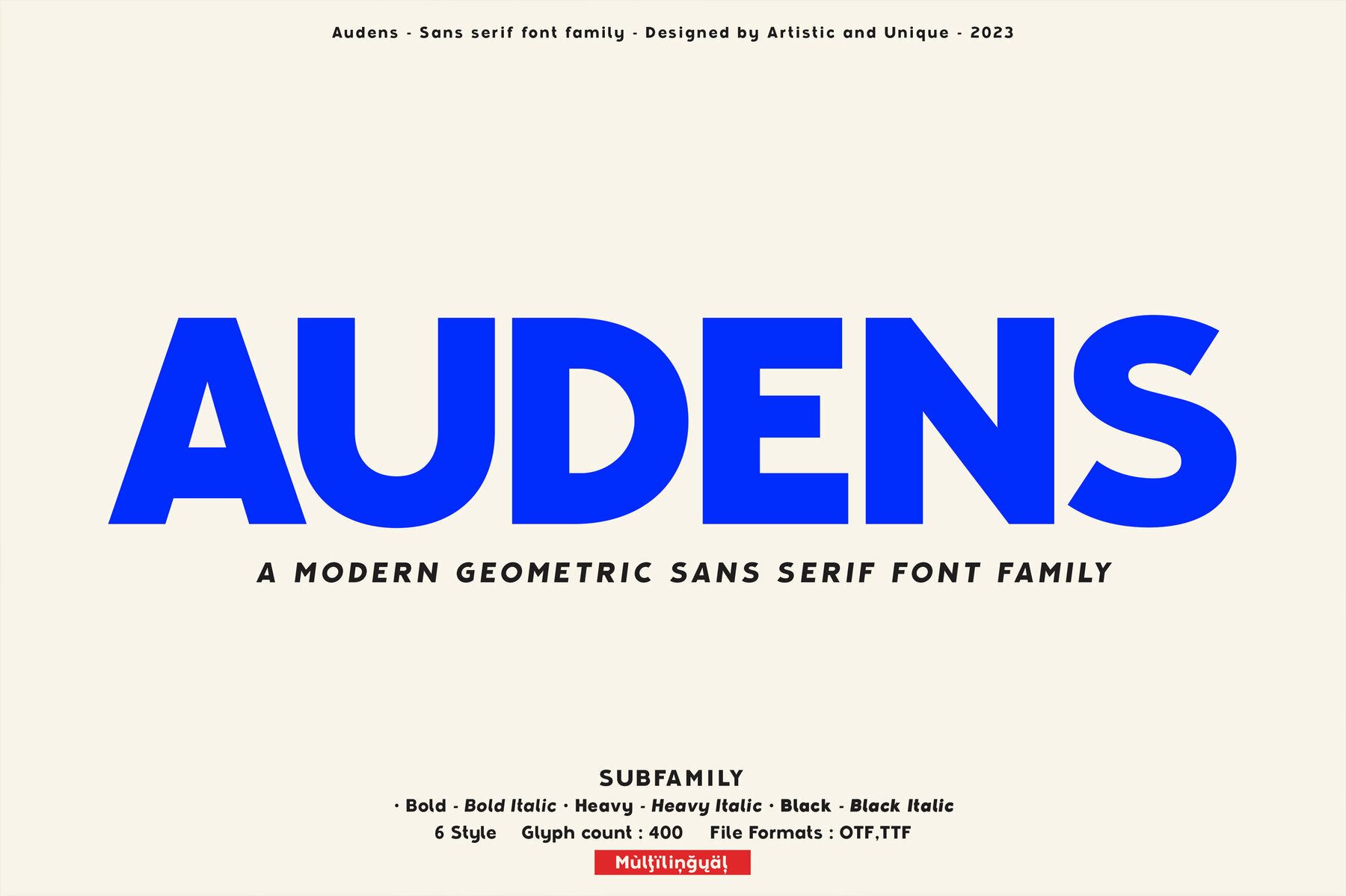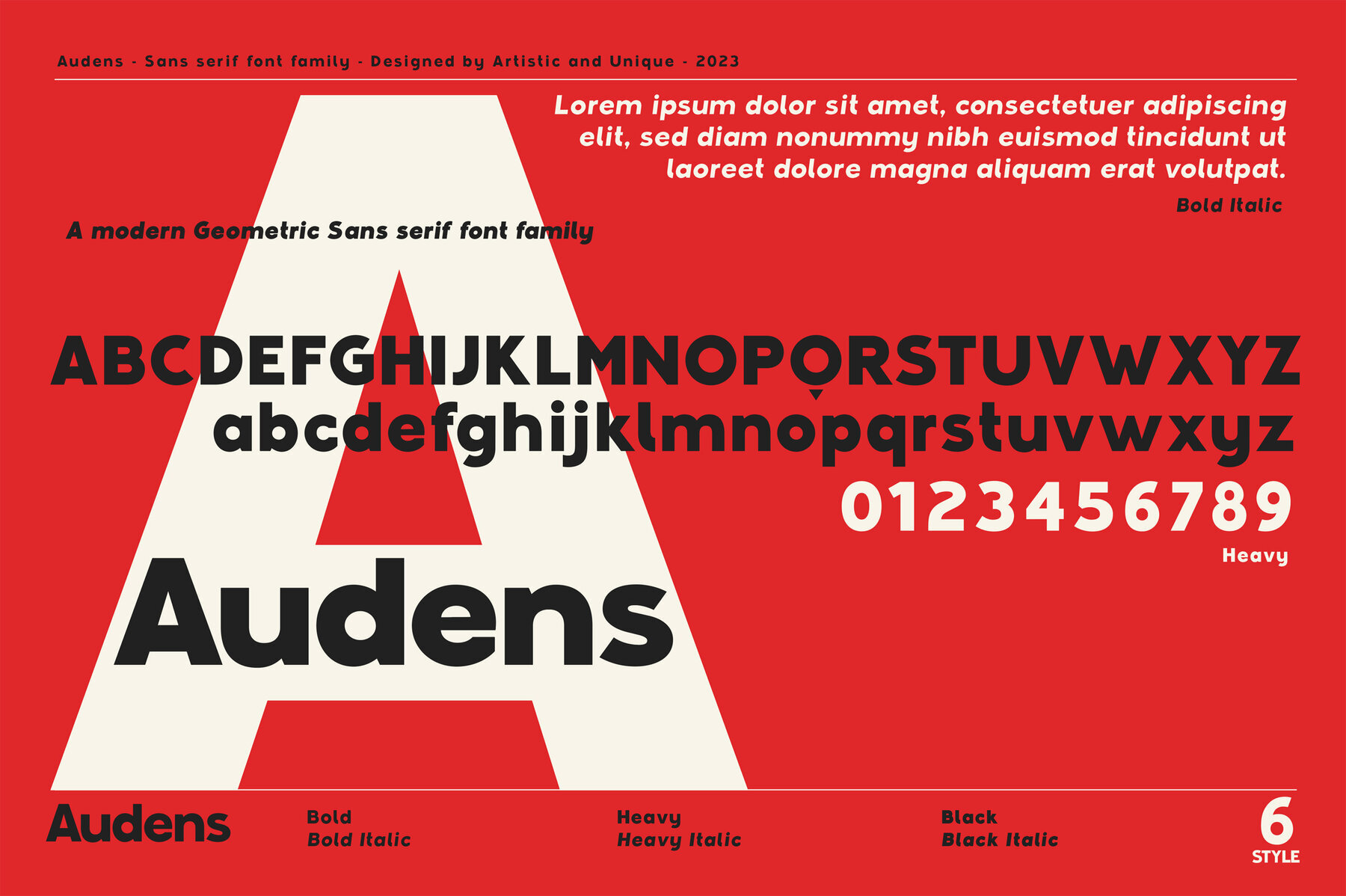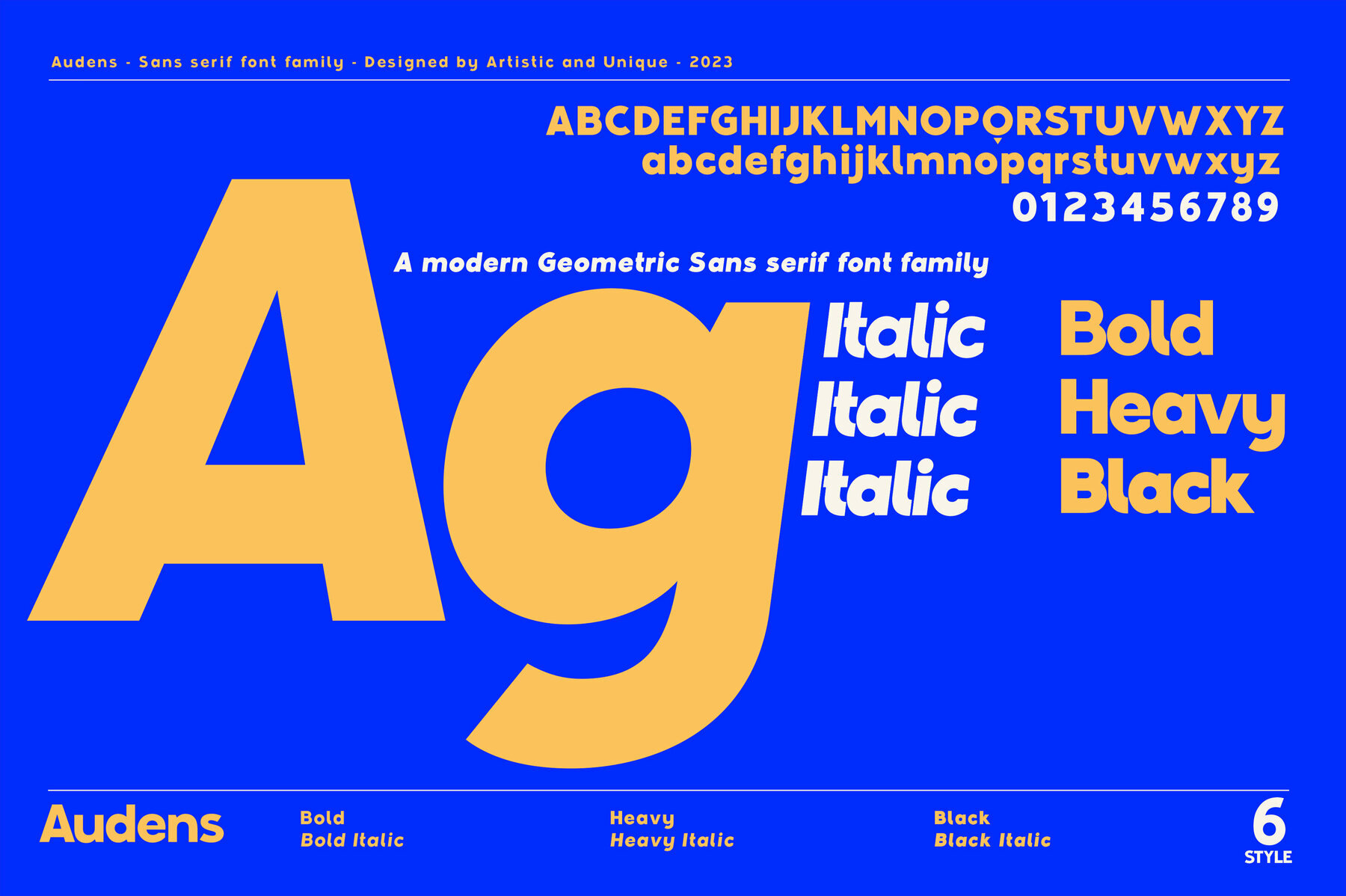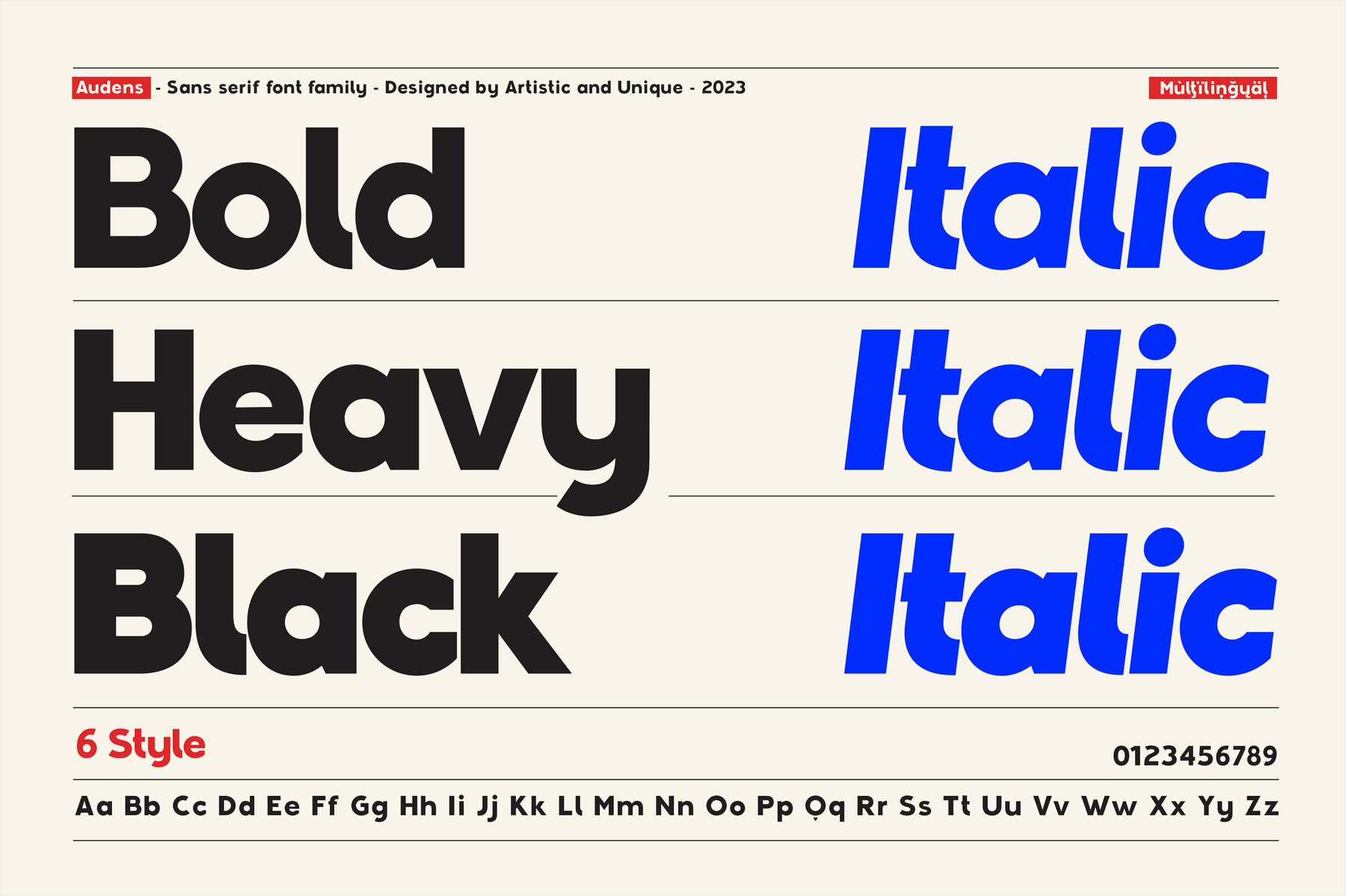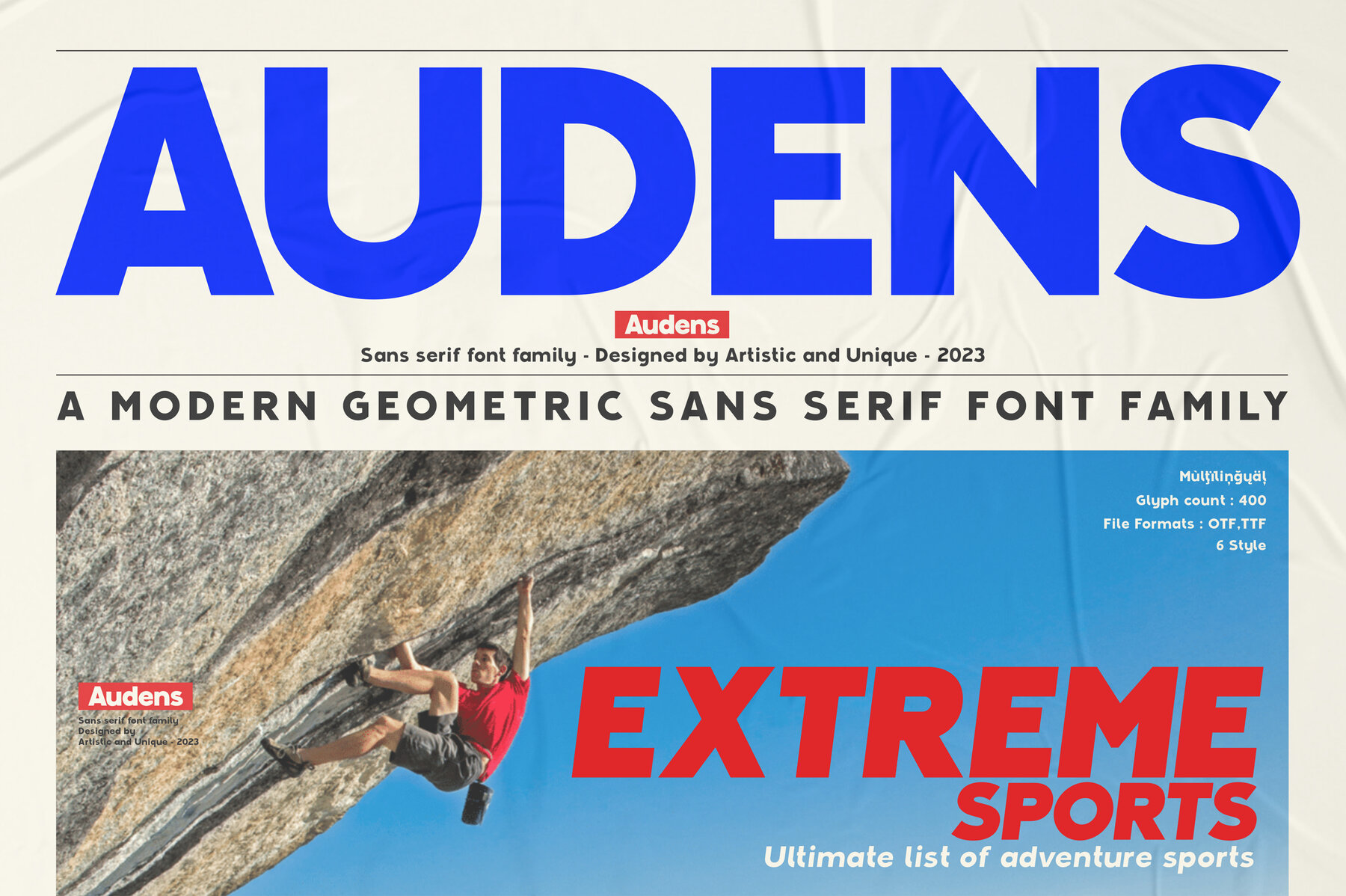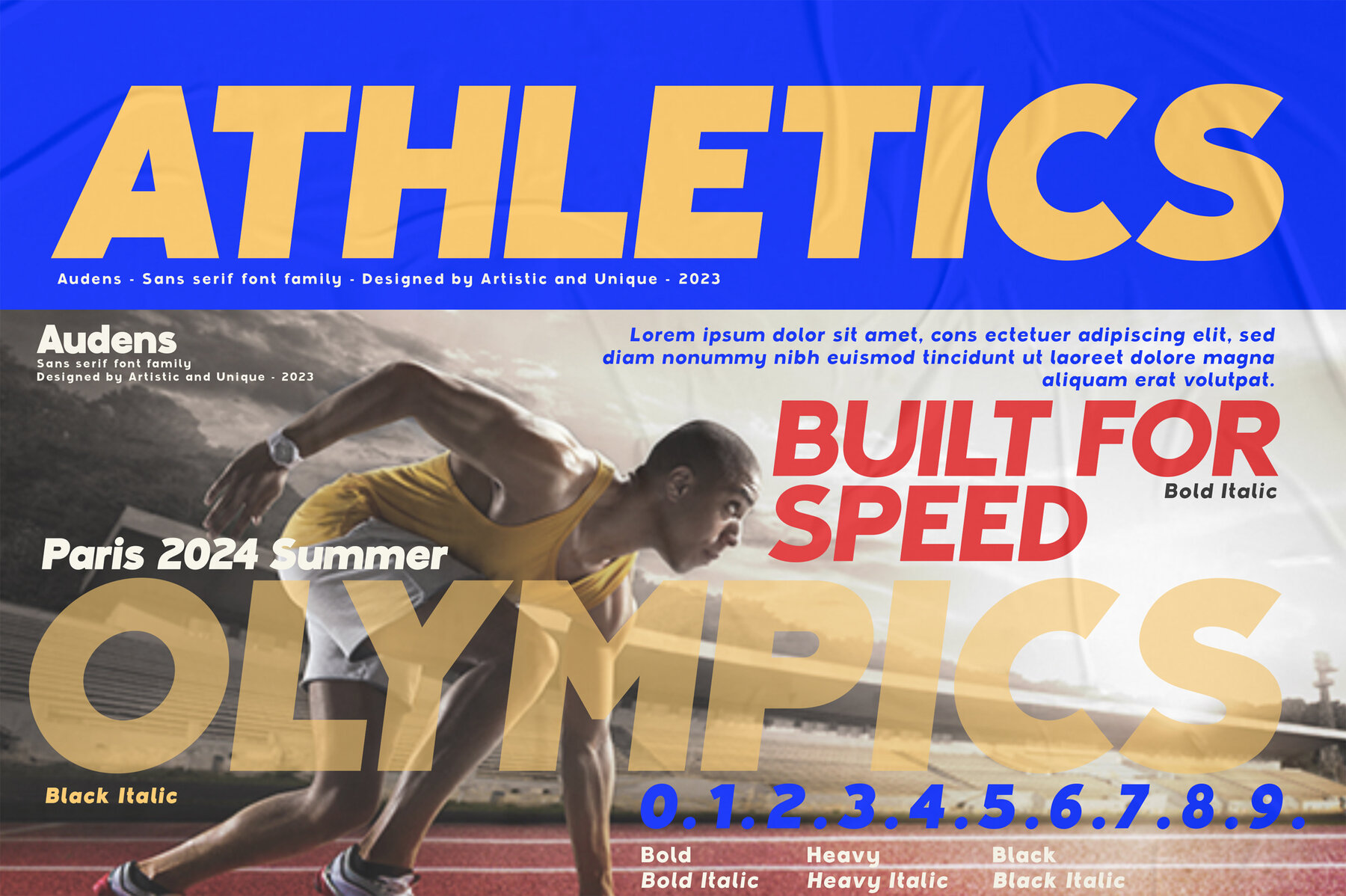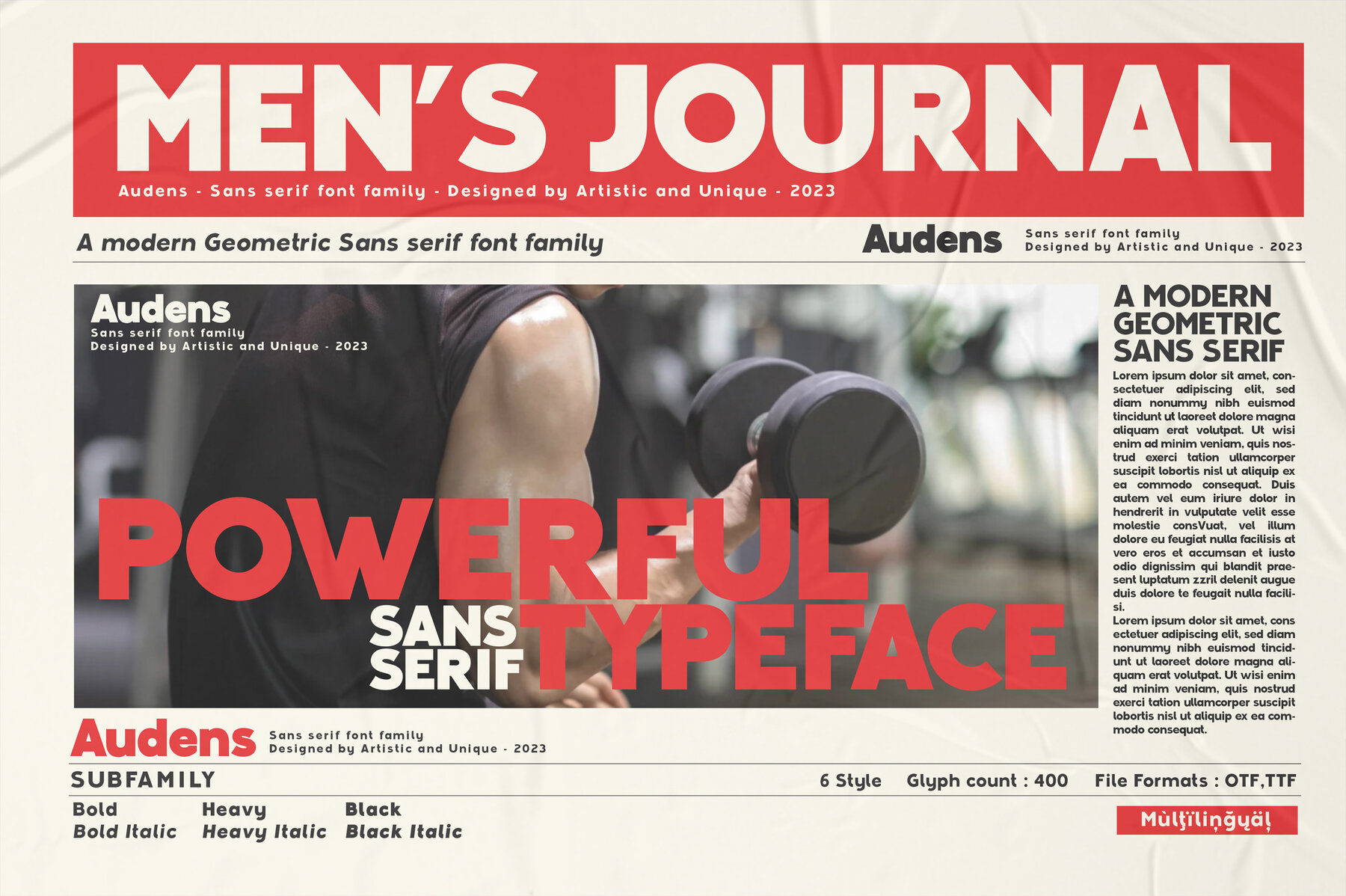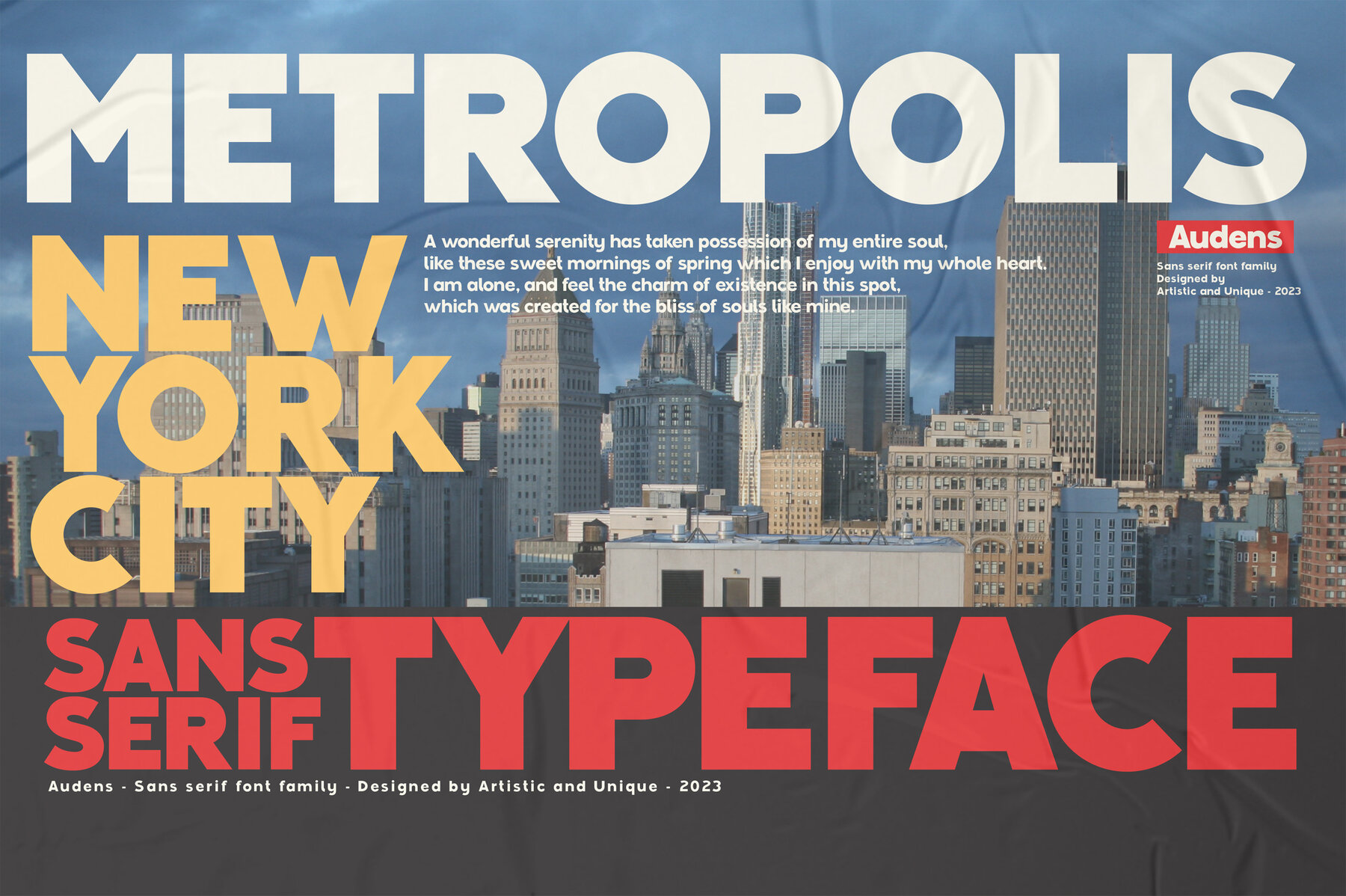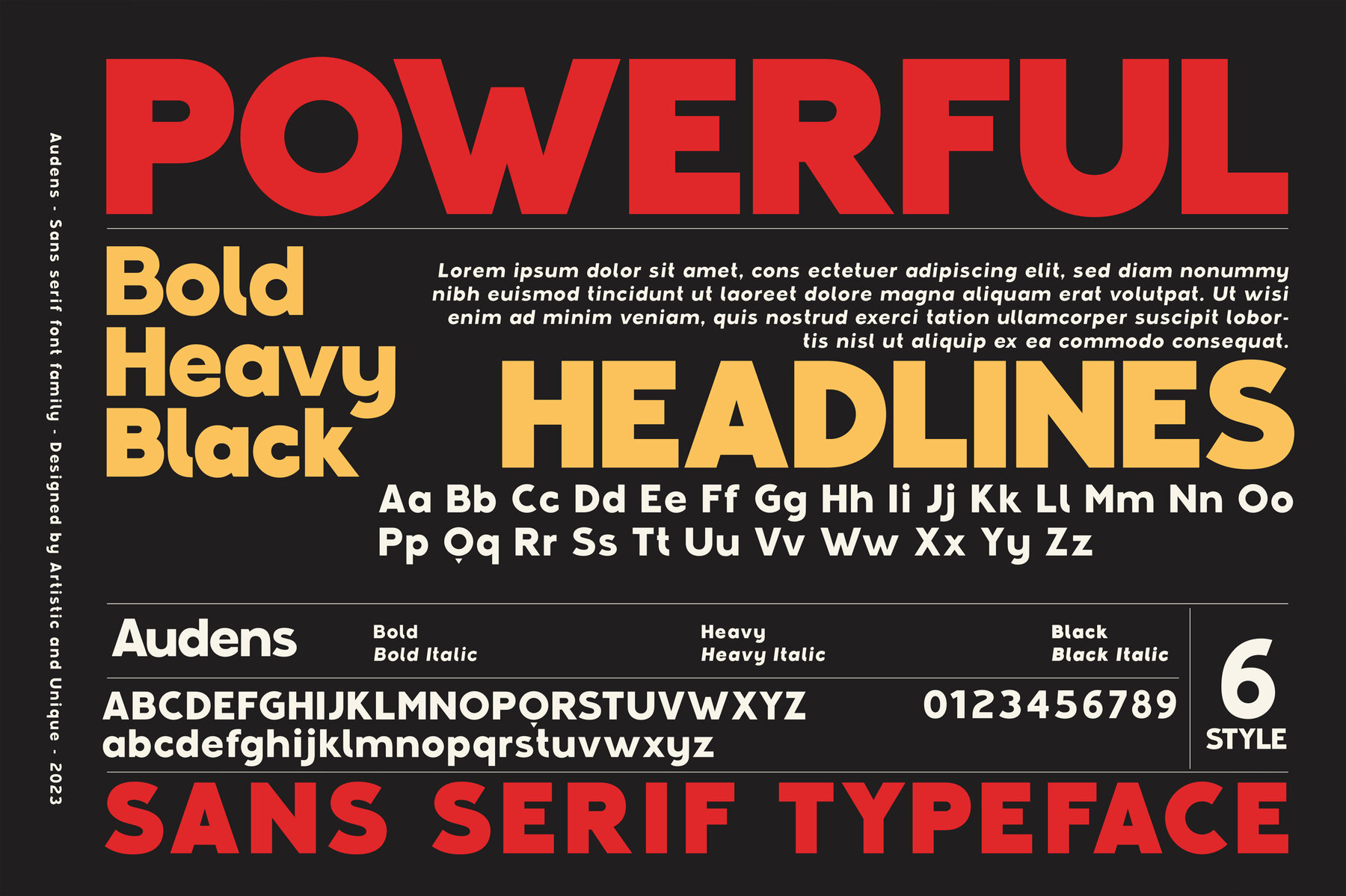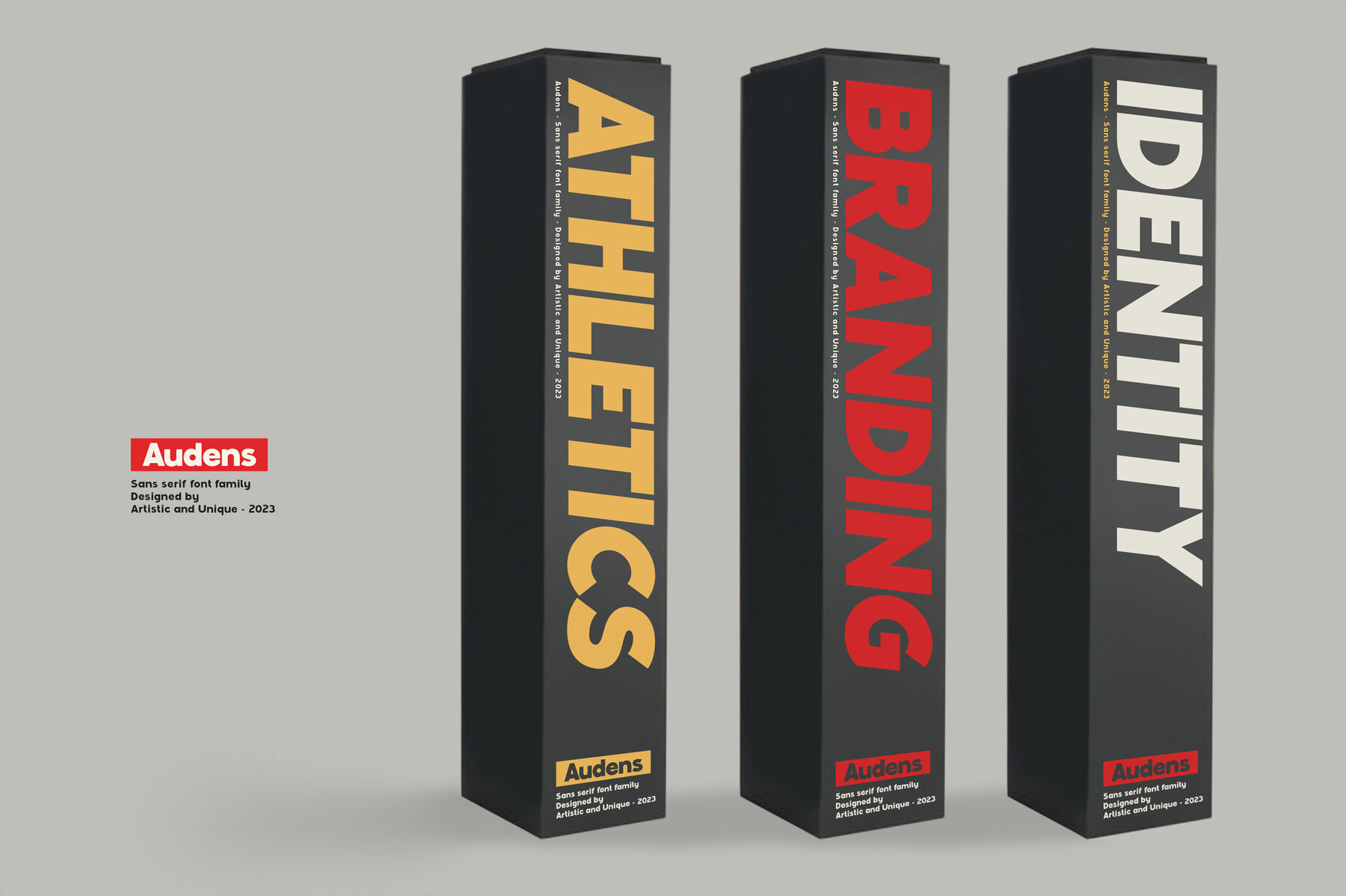
Audens Font
Audens Bold
Audens Bold Italic
Audens Heavy
Audens Heavy Italic
Audens Black
Audens Black Italic
Audens is a contemporary sans serif font family with a geometric design, comprising six distinct styles ideal for impactful headlines. This versatile typeface fits seamlessly across diverse applications, spanning banners, posters, newspapers, magazines, logos, brand identities, and even movie and game titles. With its clean lines and modern appeal, Audens proves indispensable for those in search of a sans serif typeface that enhances branding efforts. Its adaptability means you can effortlessly integrate it into projects ranging from digital platforms to print media. Font Subfamily:Audens: Modern Geometric Sans Serif